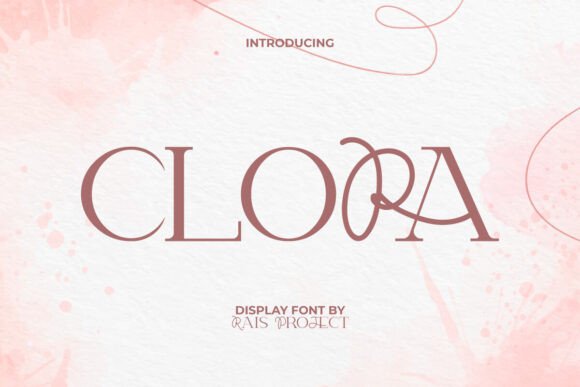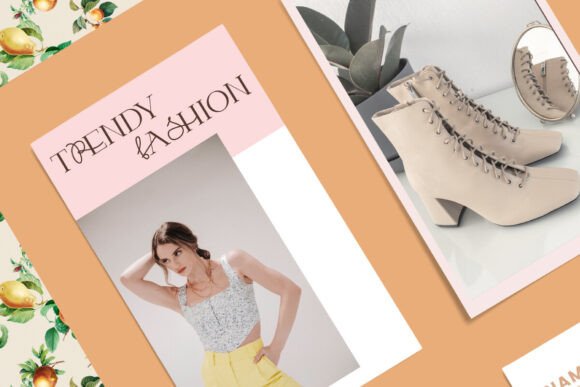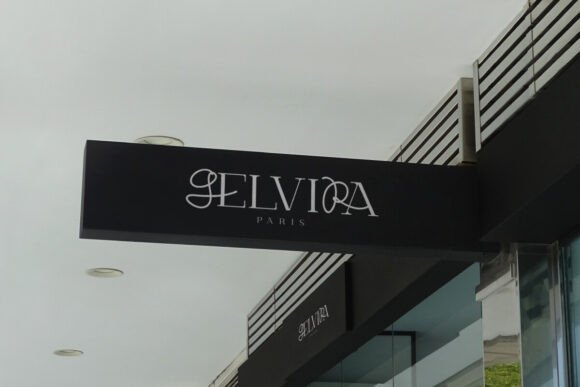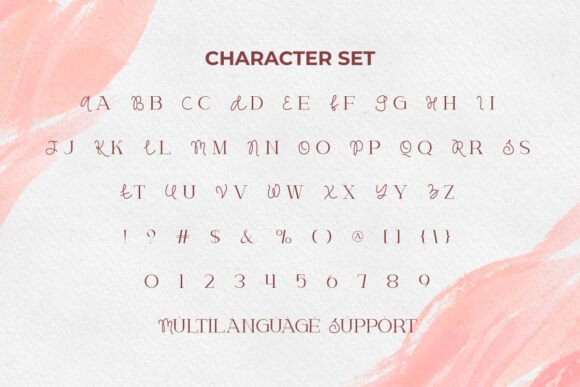
Clora Font: Elegant Serif & Script for Modern Branding & Logo Design
About the Clora Font
From logos to headlines, the Clora Font is the perfect choice for making a lasting impression. Clora Font is an elegant, luxurious, unique serif display font with a stunning combination of styles. This font has a minimalist character with two different types of fonts, Script and Serif. It will be good for any designs, such as brand image, cover, custom design, flyer, invitation, label, marketing material, menu, poster, product packaging, quote, signage, stationery, website page, and more!
Clora’s elegant, minimalist nature makes it ideal for headlines, logos, and short impactful text in branding projects, packaging design, and high-end invitations. Its luxurious feel is perfect for products targeting a sophisticated clientele. Avoid using Clora for body copy or extended text blocks; its refined detailing can become visually overwhelming in large quantities.
The script variant pairs well with clean sans-serif fonts like Open Sans or Lato for a modern contrast, while the serif style complements geometric sans-serifs such as Futura or Montserrat for a balanced, sophisticated look. Consider pairing with a delicate script font like Great Vibes for added elegance in invitations or stationery.
Clora projects an air of sophisticated confidence. It’s best suited for brands aiming for a premium, refined image, emphasizing quality and exclusivity. Its versatility, however, allows for flexible application across various design needs provided it remains a focal, rather than a foundational, element.